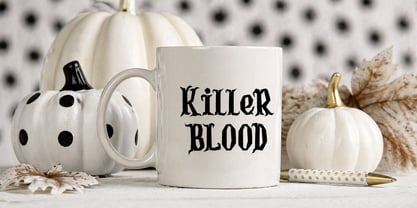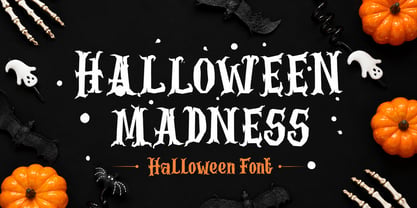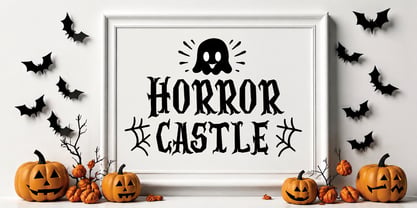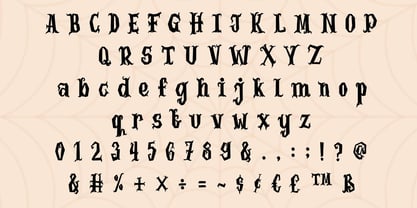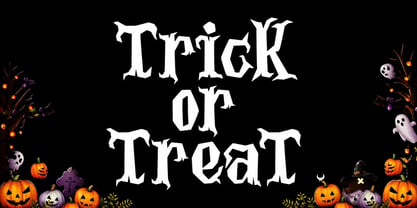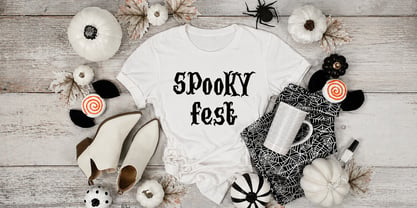
Halloween Madness
Halloween Madness is a spooky gothic display font designed to capture the mysterious and thrilling atmosphere of the Halloween season. With bold letterforms and eerie decorative details, this font is perfect for creating chilling and eye-catching typography for Halloween-themed designs.
Inspired by classic gothic lettering and horror aesthetics, the Halloween font features dramatic shapes and expressive characters that instantly evoke a dark and mysterious mood. The bold structure ensures strong visual impact, making it ideal for display typography in posters, banners, and festive graphics.
Each character is carefully crafted with haunting details that reflect the spirit of Halloween. The font’s twisted serifs and elongated strokes create a whimsical yet sinister appearance, giving your designs a playful horror vibe that feels both spooky and creative.
The Halloween font is especially suited for seasonal projects such as Halloween posters, party invitations, costume event banners, and themed decorations. Its distinctive style helps designs stand out and instantly communicate the festive atmosphere of the holiday.
Designers and crafters will also appreciate its versatility for apparel designs, embroidery projects, Cricut crafts, and DIY decorations. Whether used on T-shirts, signage, or promotional graphics, the font adds a haunting charm that enhances Halloween-themed visuals.
With its dramatic gothic style and playful spooky elements, the Halloween font helps transform ordinary text into typography that feels mysterious, fun, and full of holiday spirit.
Perfect for:
• Halloween Posters & Event Banners
• Horror-Themed Graphics
• Halloween Party Invitations
• T-Shirt & Apparel Designs
• Circut & Craft Projects
• Embroidery & DIY Decorations
• Social Media Halloween Graphics
• Spooky Quotes & Headlines